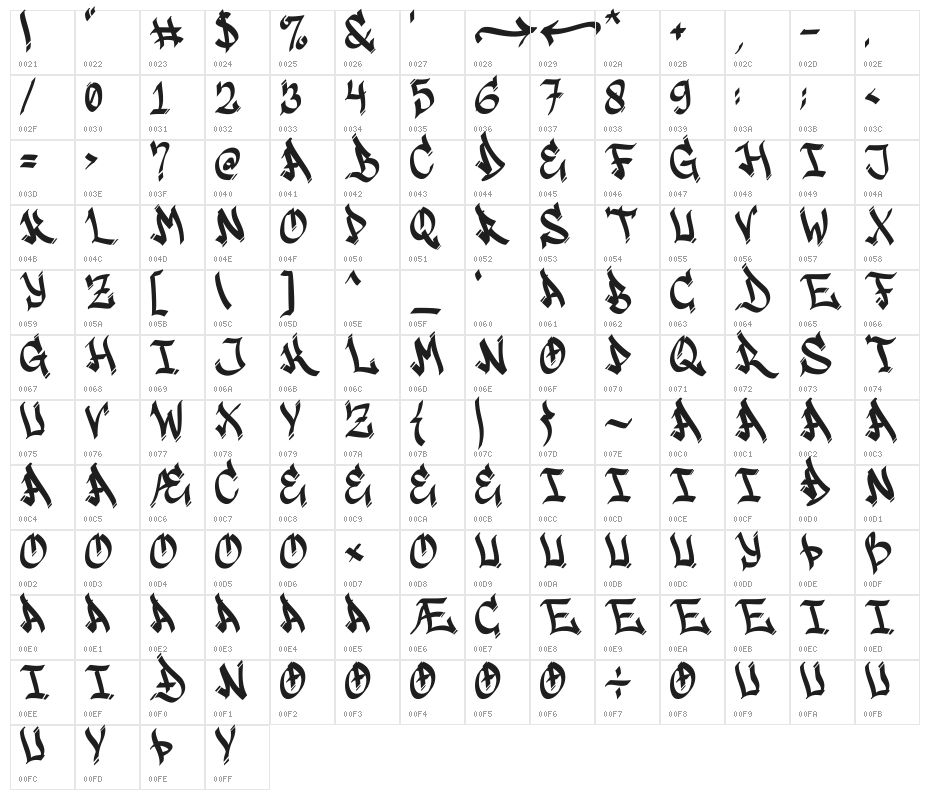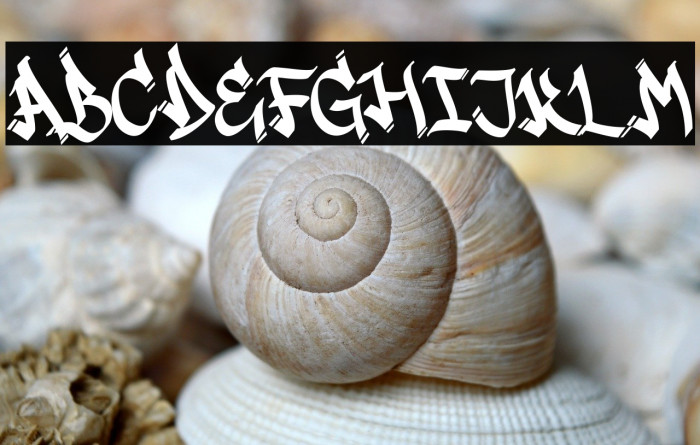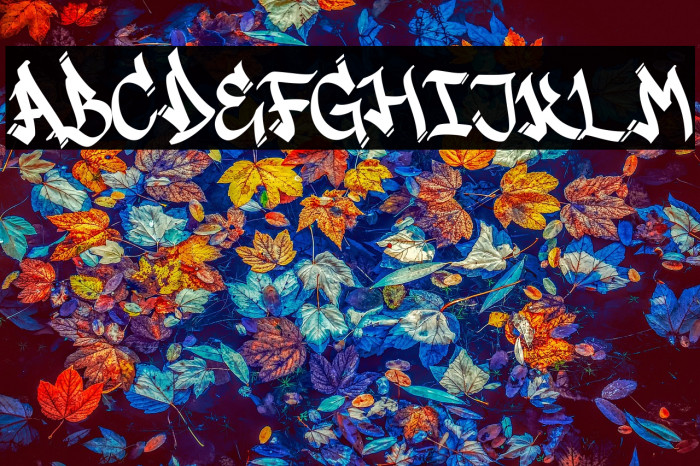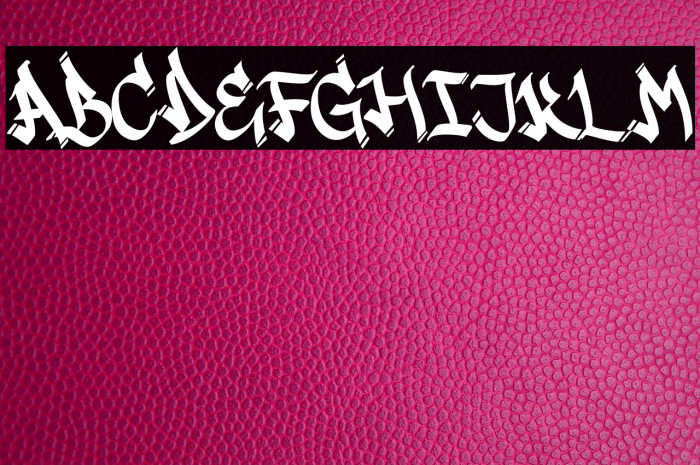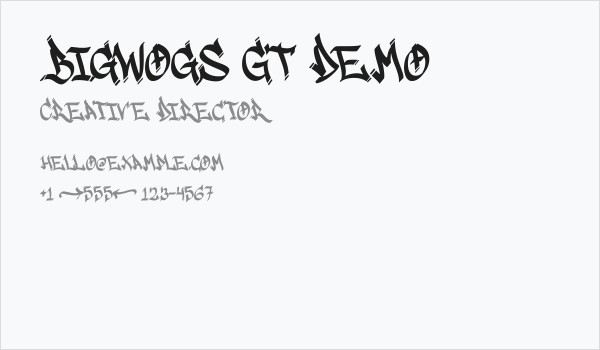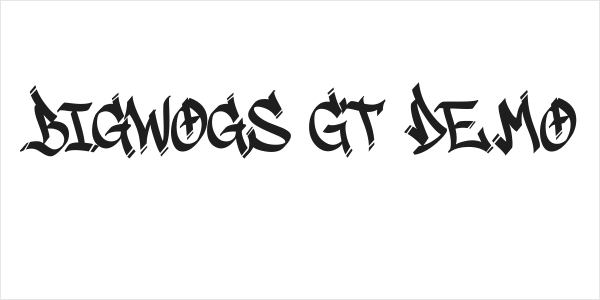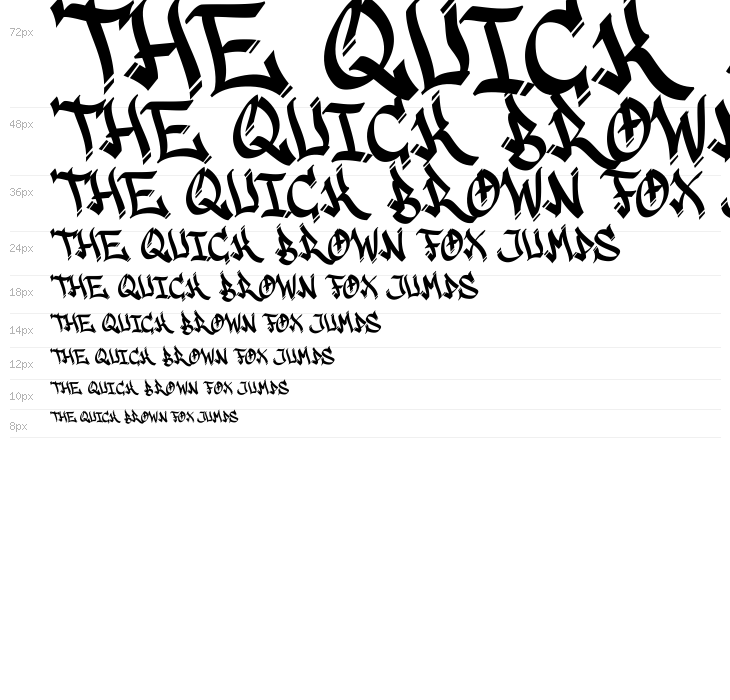
Bigwogs GT Demo Font
Bigwogs GT Demo Description
This font features a bold, graffiti-inspired style with sharp, angular edges and dynamic strokes. The characters are highly stylized, with a sense of movement and energy, reminiscent of street art. The uppercase and lowercase letters maintain a consistent design, while the numbers and special characters integrate seamlessly into the overall aesthetic. The font's unique flair makes it stand out, capturing attention with its artistic and rebellious vibe.
| Overall Style | Modern, Urban |
| Use Case | Logos, Posters, Branding |
| Proposed Projects | Ideal for urban-themed designs, streetwear branding, music album covers, and event posters. |